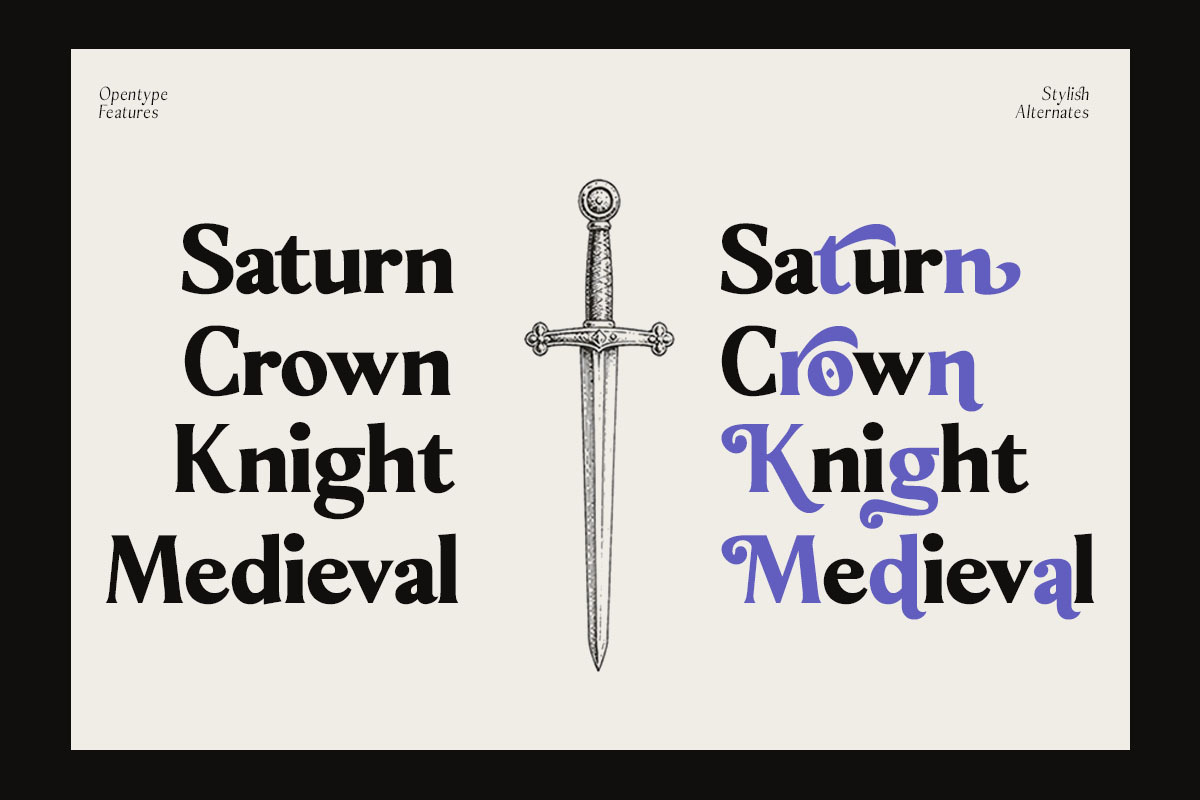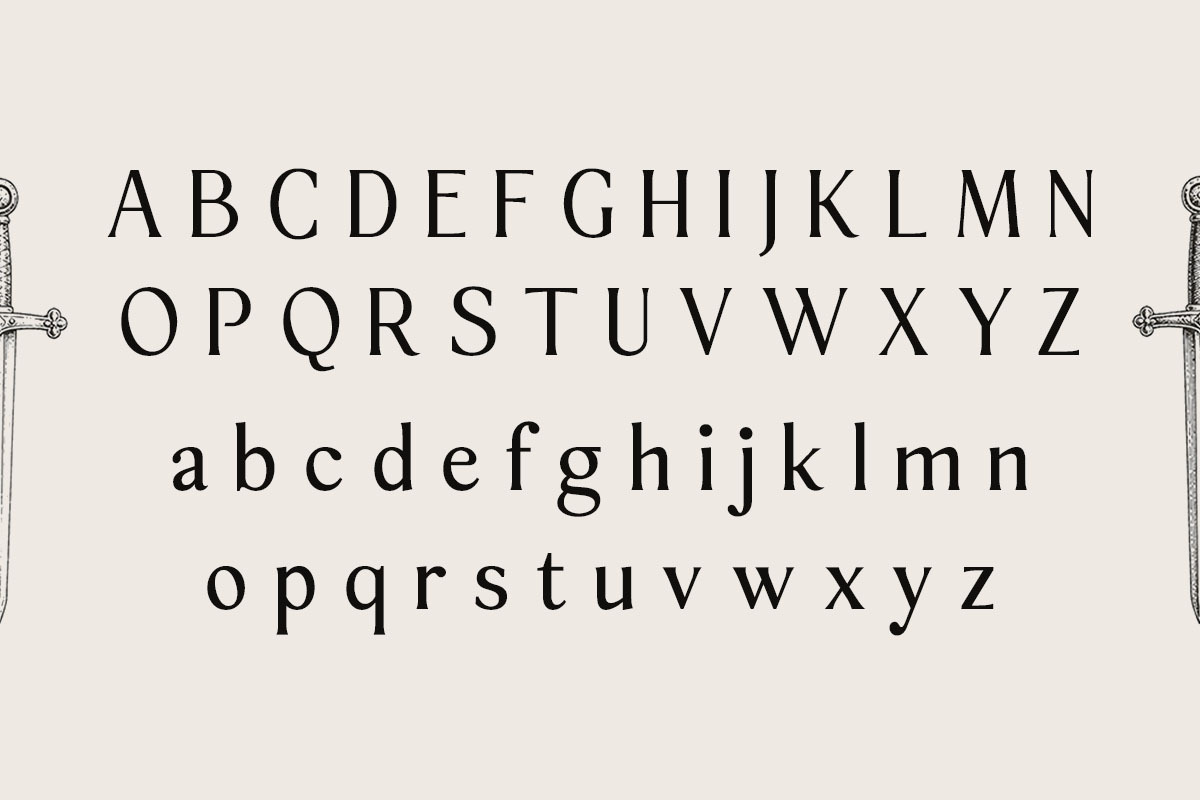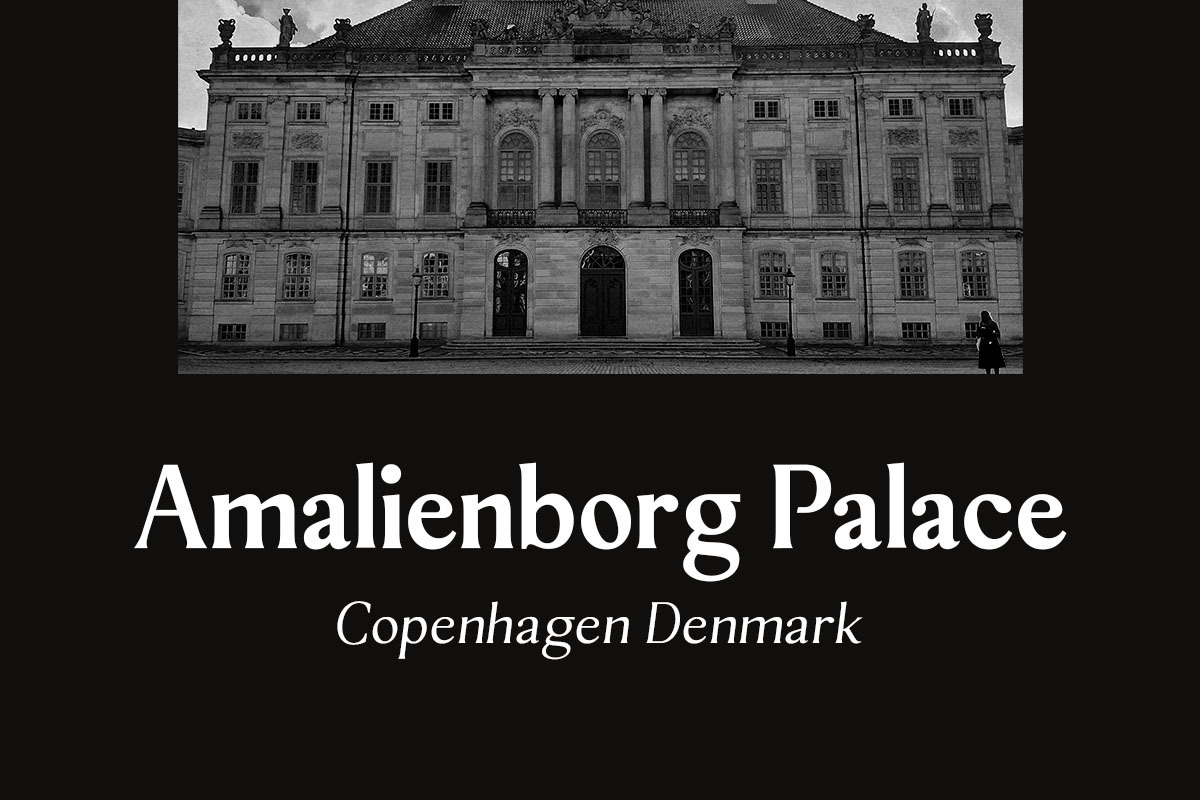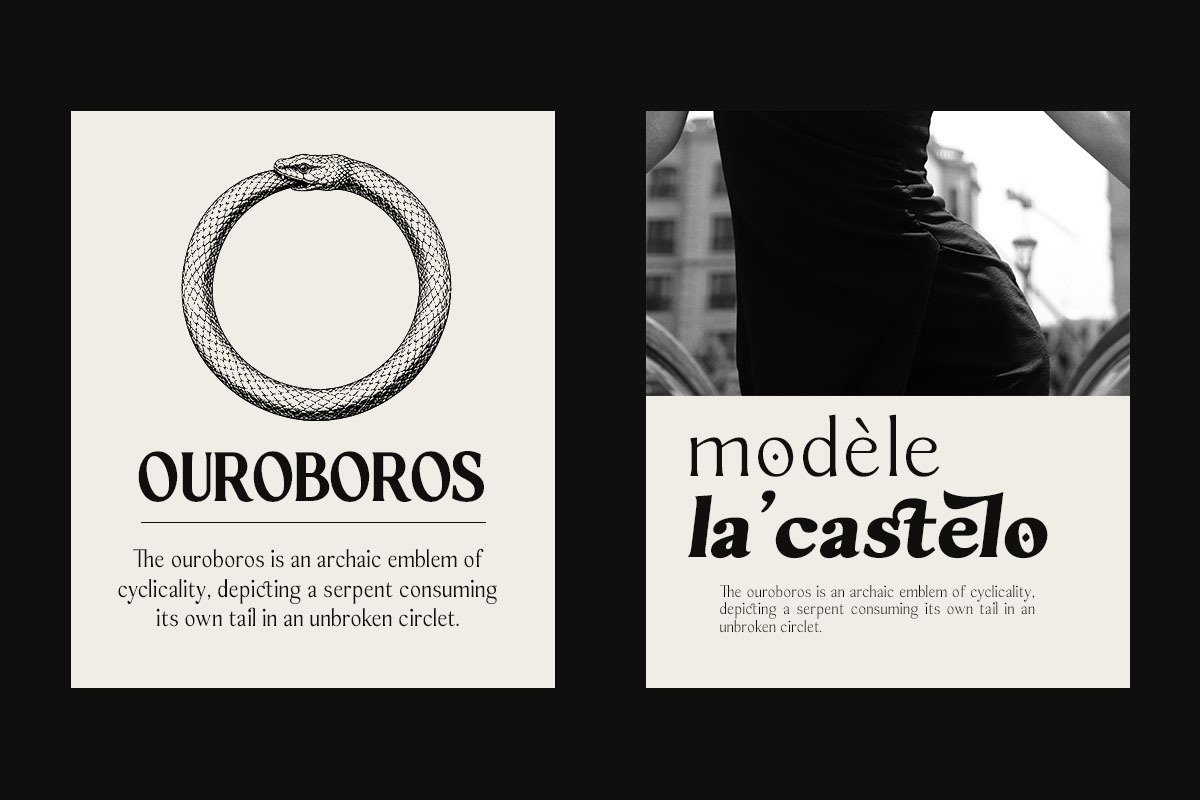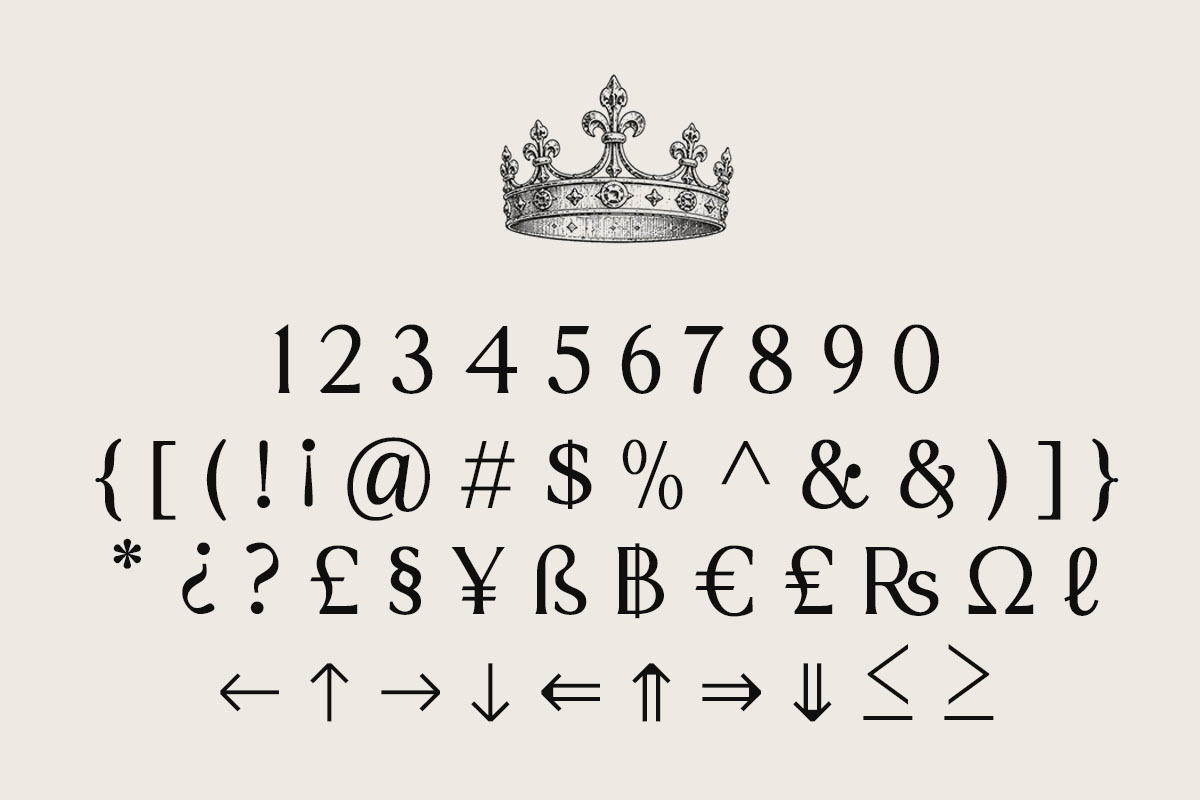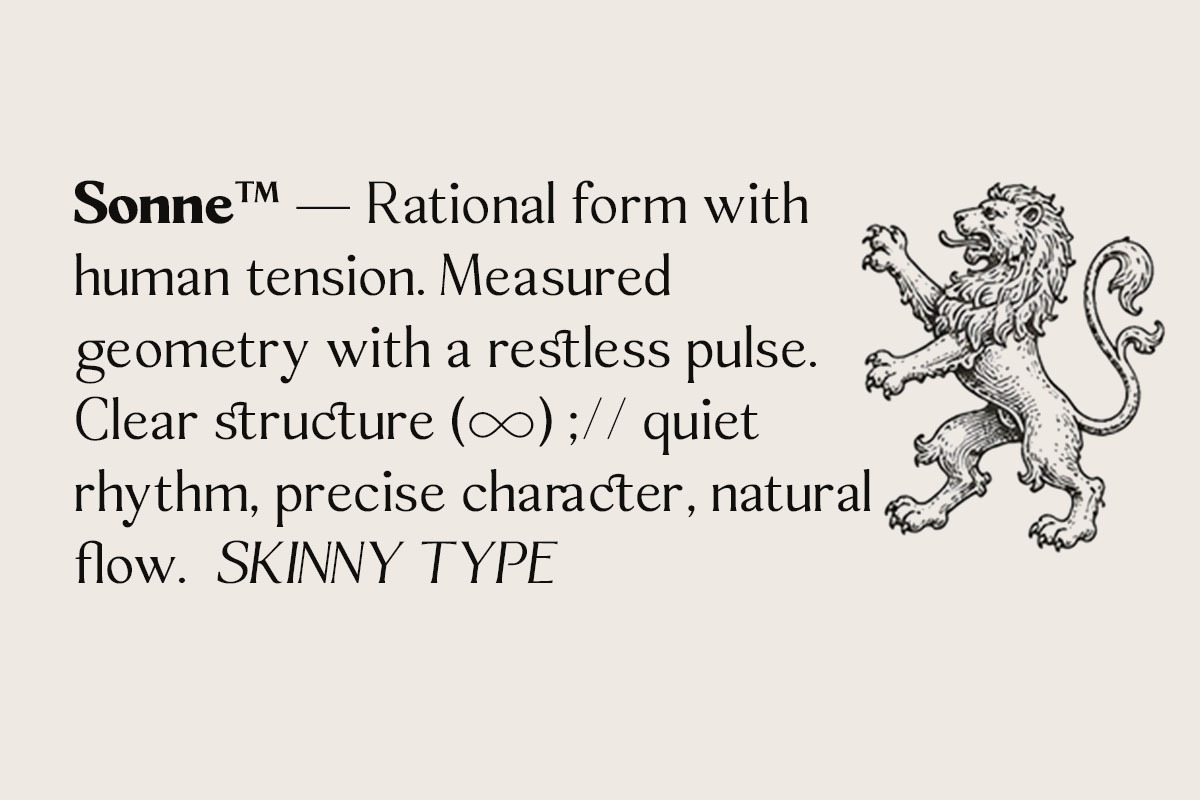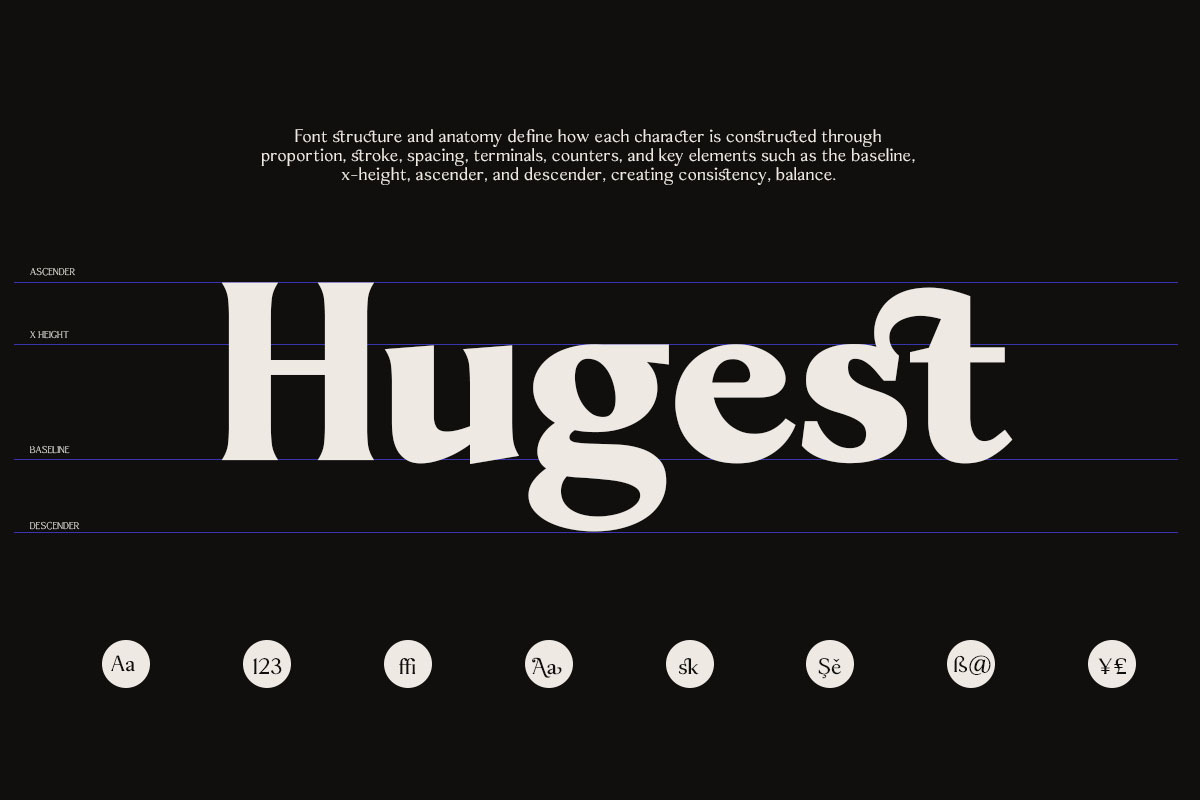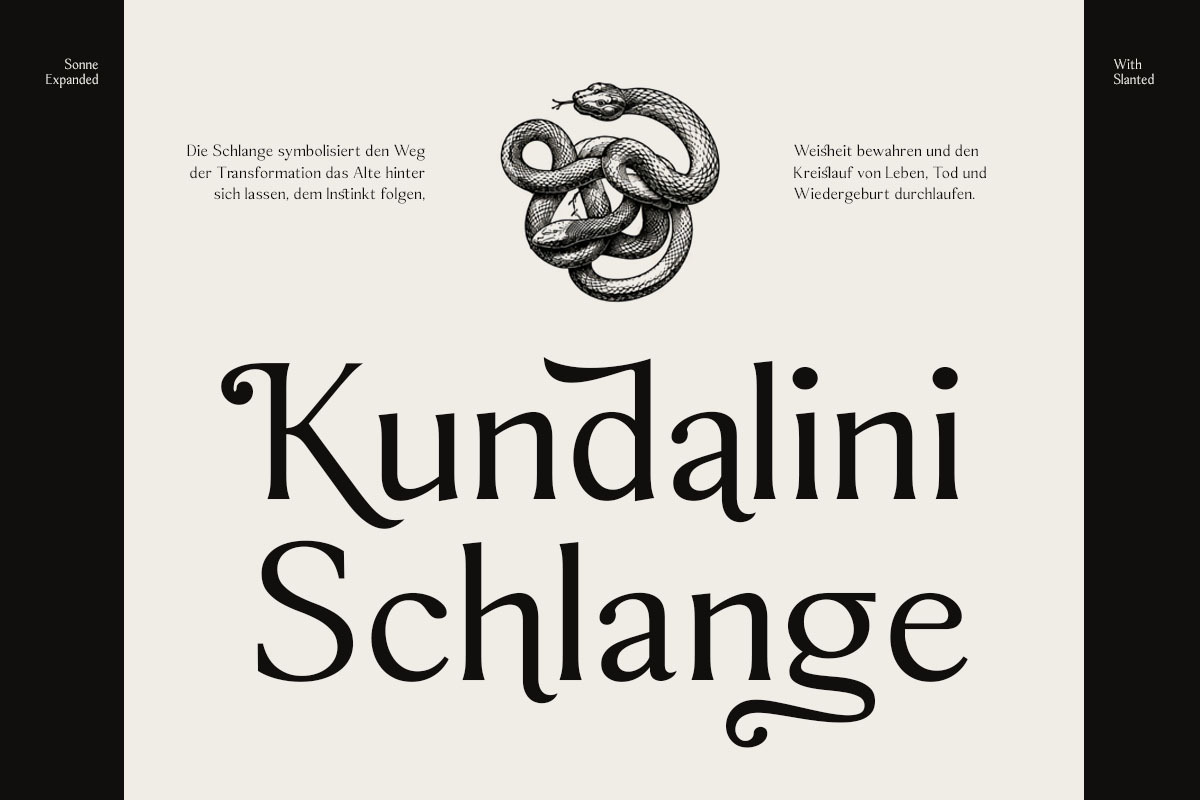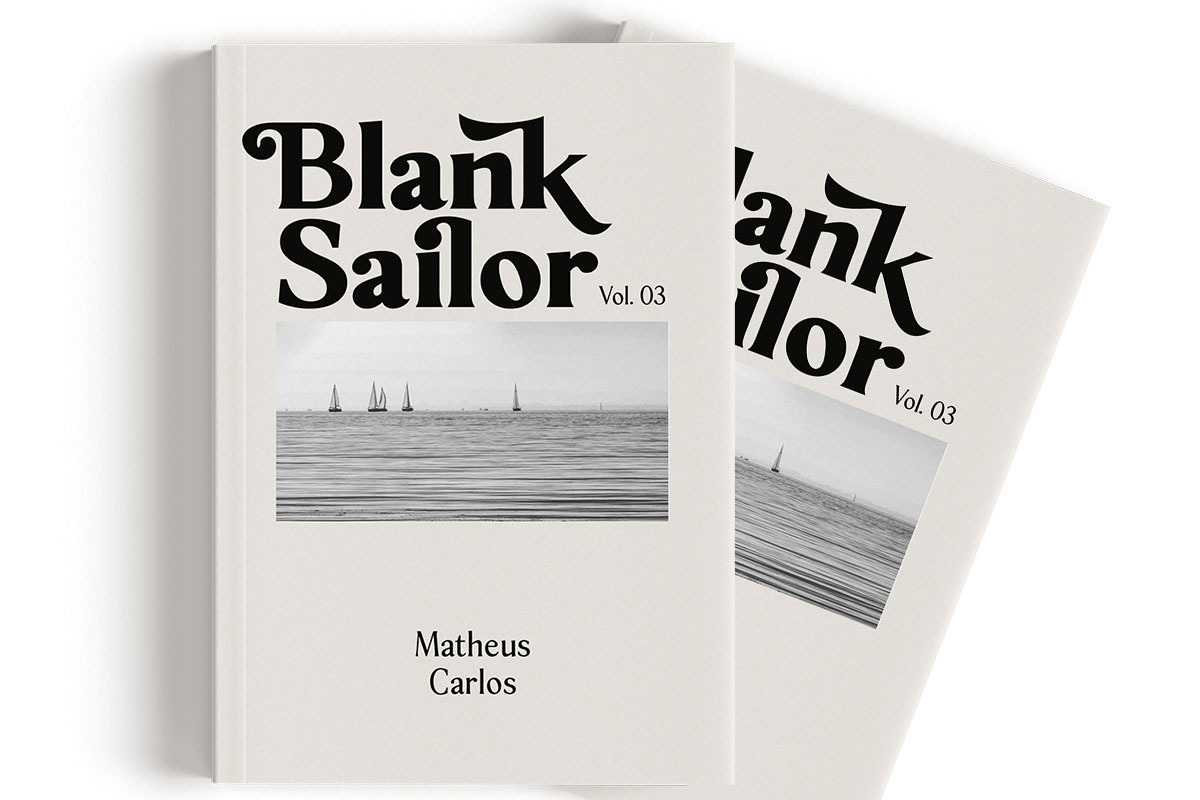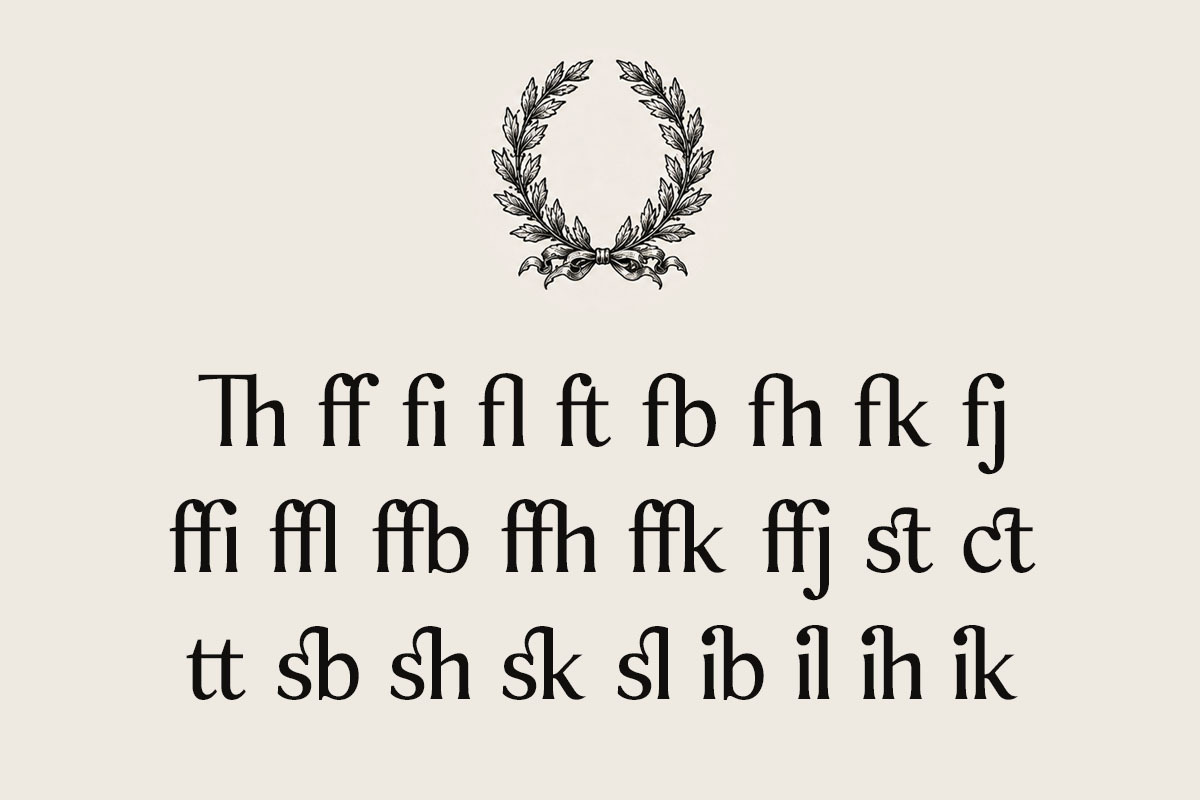
Sonne | 12 Fonts
Sonne carries a quiet tension between classical elegance and a sharper contemporary voice, shaping each letter with sculpted curves, measured contrast, and unexpected details that give the typeface its own rhythm. Its forms feel composed yet expressive, allowing the family to move naturally between restrained sophistication and a more commanding presence, while the slanted styles introduce a subtle sense of movement and attitude.
With 12 font files Sonne is a refined typographic family designed for identities, editorials, fashion, cultural projects, branding, packaging, invitations, and other compositions that require character without becoming excessive. Its balanced structure and distinctive details make it versatile for both display use and carefully considered text settings.